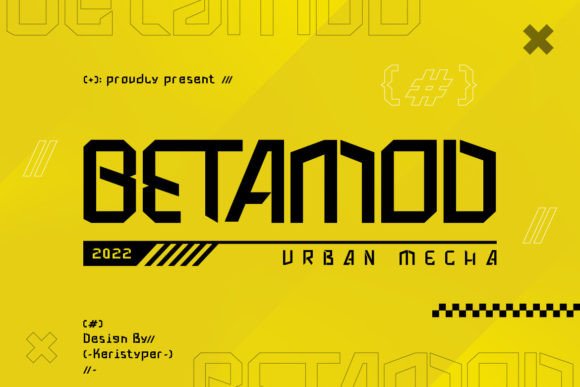
Introducing Betamod: The Modern Sci-Fi Font for Creative Minds
A Personal Review of Betamod
- ✨ Modern and sleek design: Betamod’s futuristic vibe is perfect for projects that require a cutting-edge feel.
- ✅ Versatility: This font is great for logo design, social media posts, movie titles, book titles, short text, and even long text letters.
- 💡 OpenType features: Betamod comes with a range of OpenType features, including glyphs and stylistic alternates, making it perfect for creative projects.
- 🤔 Limited use for body text: While Betamod is great for headings and titles, it might not be the best choice for long body text due to its futuristic and condensed design.
- ⚠️ Requires careful kerning: As with any font, kerning is crucial to ensure that Betamod looks its best. Be prepared to adjust the kerning for optimal results.
The Backstory of Betamod
Betamod was designed with the goal of creating a modern, futuristic font that captures the essence of science fiction and technology. The designer aimed to create a font that would be perfect for creative projects, from logo designs to movie titles. With its sleek and condensed design, Betamod is sure to elevate your work.
Q: What is Betamod’s primary use?
A: Betamod is designed for creative projects, such as logo design, social media posts, movie titles, book titles, and more.
Q: Is Betamod suitable for body text?
A: While Betamod can be used for short paragraphs, it’s primarily designed for headings and titles. For long body text, a more traditional font might be more suitable.
Q: Does Betamod come with OpenType features?
A: Yes, Betamod includes a range of OpenType features, such as glyphs and stylistic alternates, to enhance your design work.